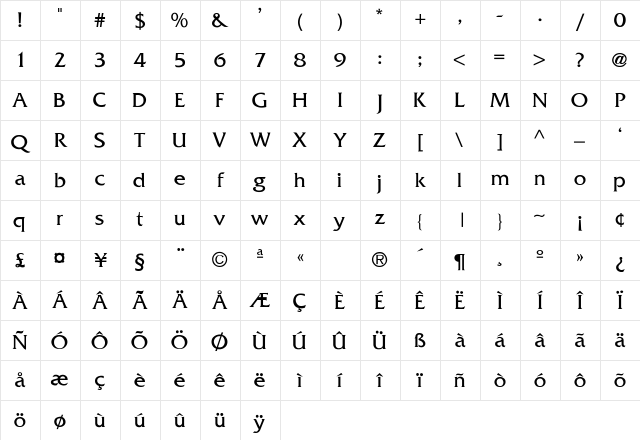
Ipolito-Thin Regular
Design Context for Ipolito-Thin
Ipolito-Thin is a composed and adaptable typeface that performs quietly and consistently across a wide range of design contexts. Its slender proportions lend an understated elegance to any composition.